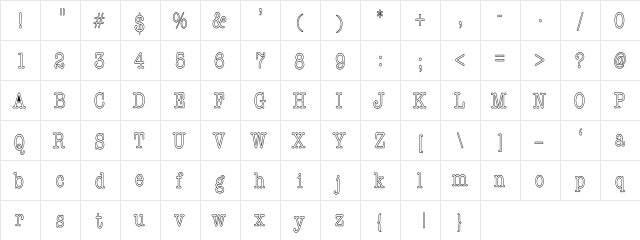
AshtonTellermatic Regular
Design Context for AshtonTellermatic Typeface
AshtonTellermatic offers clean, dependable letterforms without strong stylistic allegiance, making it a practical choice for designers who need flexibility.